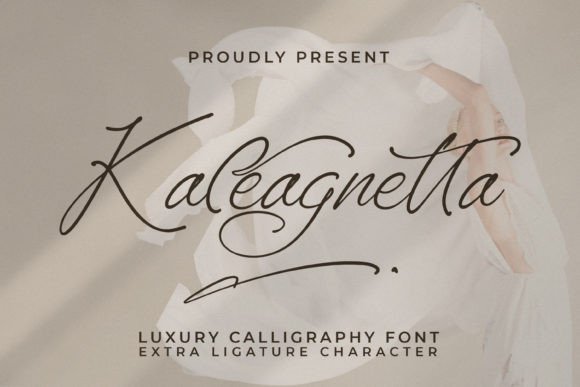
Unleash the allure of luxury and sophistication with Kaleagnetta – Luxury Calligraphy Font. This remarkable script font, crafted with painstaking attention to detail by the talented artisans at integritypestudio, exudes elegance and refinement, making it the perfect choice for those seeking to elevate their creative projects.
Fashionistas and lifestyle enthusiasts, prepare to be captivated by Kaleagnetta's enchanting aura. Its graceful strokes and flowing curves will bring a touch of timeless glamour to your designs. Picture the allure of captivating logos, branding projects, and homewares designs, all adorned with the exquisite beauty of Kaleagnetta.
Embark on a sensory journey as Kaleagnetta transforms the ordinary into the extraordinary. Envision the tactile pleasure of luxurious product packaging and mugs, each adorned with the font's elegant script, inviting customers to indulge in a world of refined taste. Quotes, posters, and shopping bags adorned with Kaleagnetta's intricate details will captivate audiences, creating an unforgettable visual experience.
Step into the realm of exclusivity with Kaleagnetta's boundless versatility. T-shirts, covers books, business cards, and invitation cards become canvases for your creativity, imbued with a touch of unparalleled sophistication. Greeting cards and labels, adorned with Kaleagnetta's graceful script, convey heartfelt sentiments and add a touch of elegance to special occasions.
Photographers, rejoice! Kaleagnetta's ethereal presence breathes life into your visual masterpieces. Watermarks bearing the font's exquisite script add a touch of artistry and professionalism, distinguishing your work from the ordinary. Special events, adorned with Kaleagnetta's allure, become unforgettable, leaving a lasting impression on your guests.
Welcome to the world of Kaleagnetta, where luxury meets creativity. Embrace the opulence, indulge in the sophistication, and let your designs shine like never before. Experience the transformative power of Kaleagnetta today.